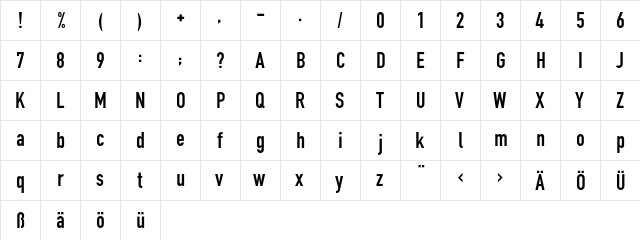
DIN1451EF EngNeu Font Preview
DIN1451EF EngNeu
Design Context for DIN1451EF Typeface
DIN1451EF takes a measured approach to typography — its balanced proportions and neutral character make it a reliable workhorse for both digital and print work.